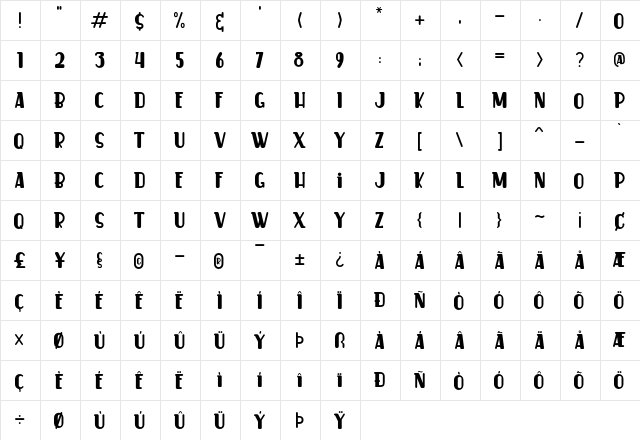
Cooker Cake Demo Demo
Cooker Cake Demo takes a measured approach to typography — its balanced proportions and neutral character make it a reliable workhorse for both digital and print work.